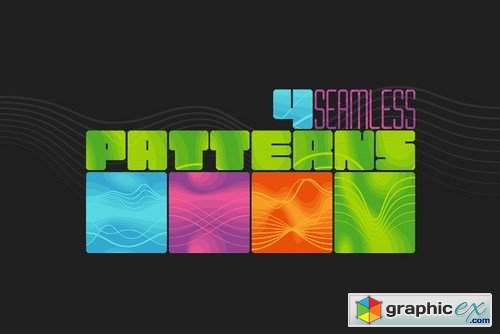
Inside the BOX Font & Patterns
Hi! Introducing conceptual modern typeface "Inside the BOX". It`s two-in-one font - big letters are made bold and fat :) and small letters are thin. Also, as a bonus, you will get four wavy seamless patterns.